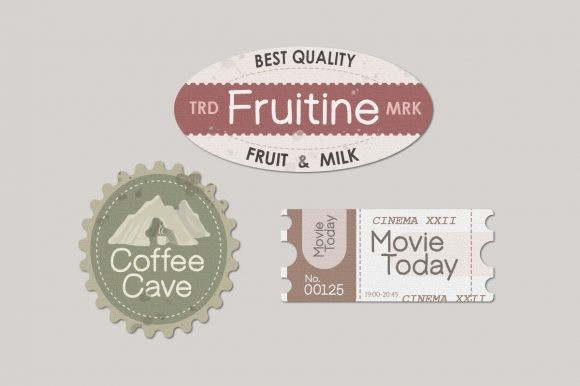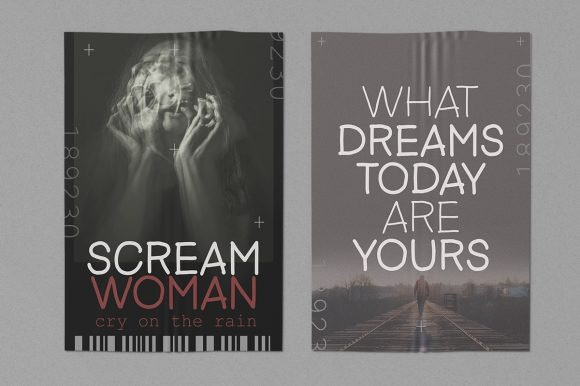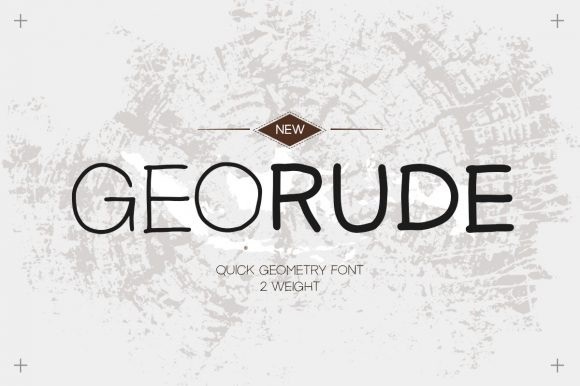
Georude Font
Georude Display Font is a simple and quirky display font. No matter the topic, this font will be an incredibly asset to your fonts’ library, as it has the potential to elevate any creation.